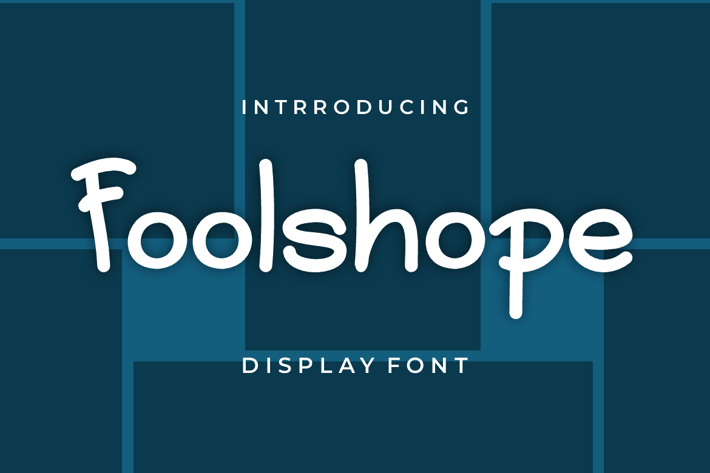
Foolshope Font
Introducing our new product Foolshope Font - Modern Font
Foolshope Font - Modern Font is a bold and authentic display font. The font is suitable for any branding project like logo, t-shirt printing, esport, and many more. outstanding in a wide range of contexts.